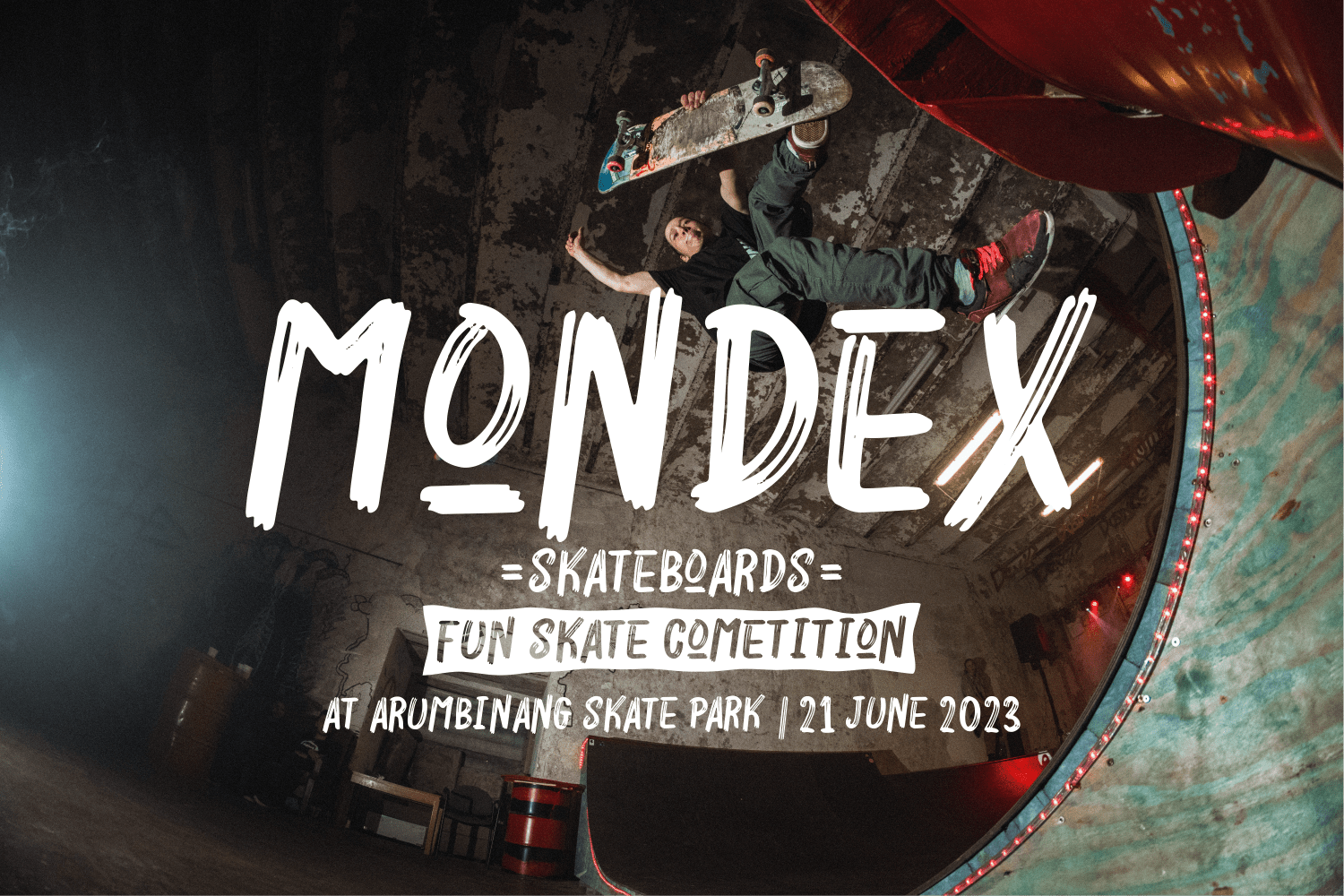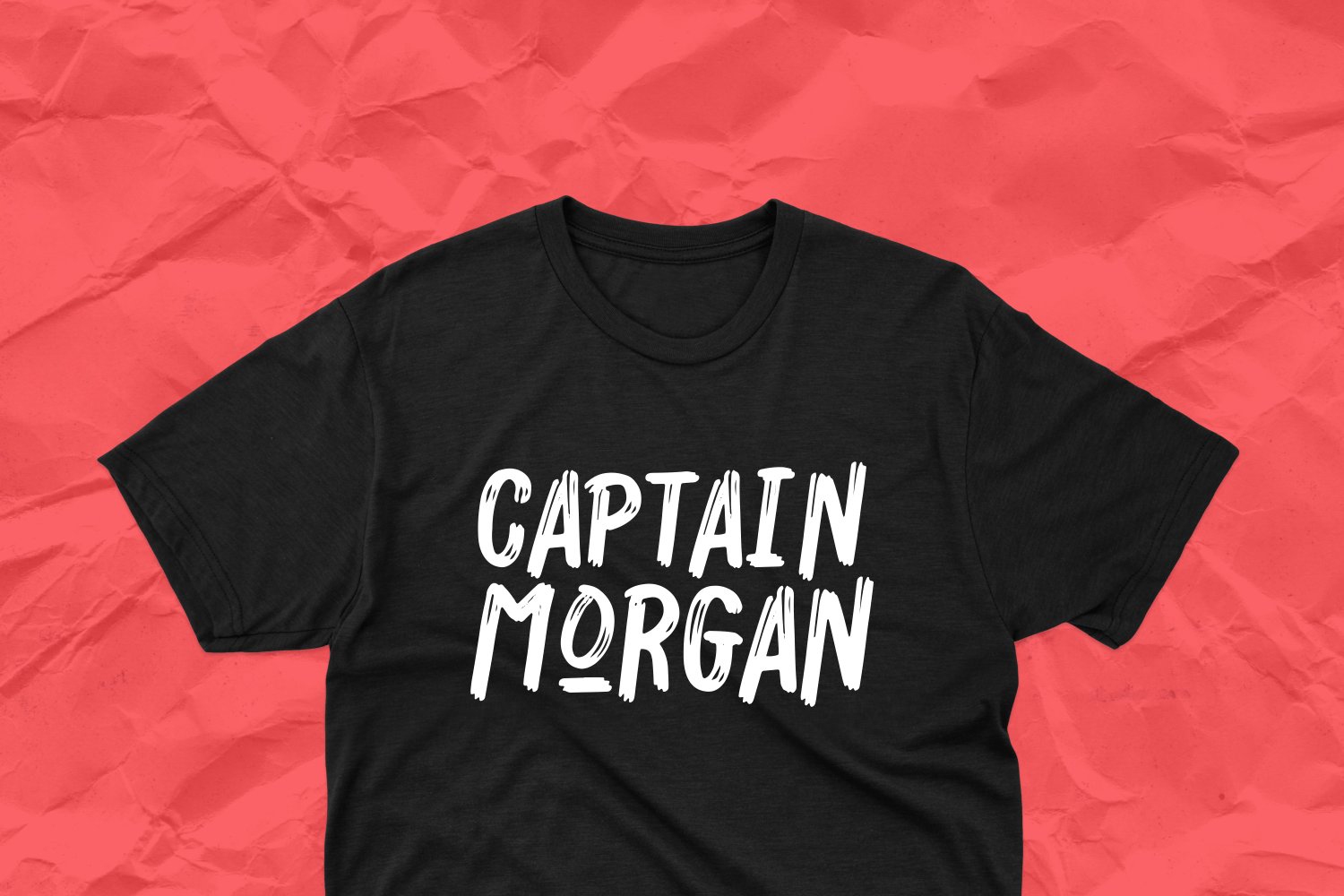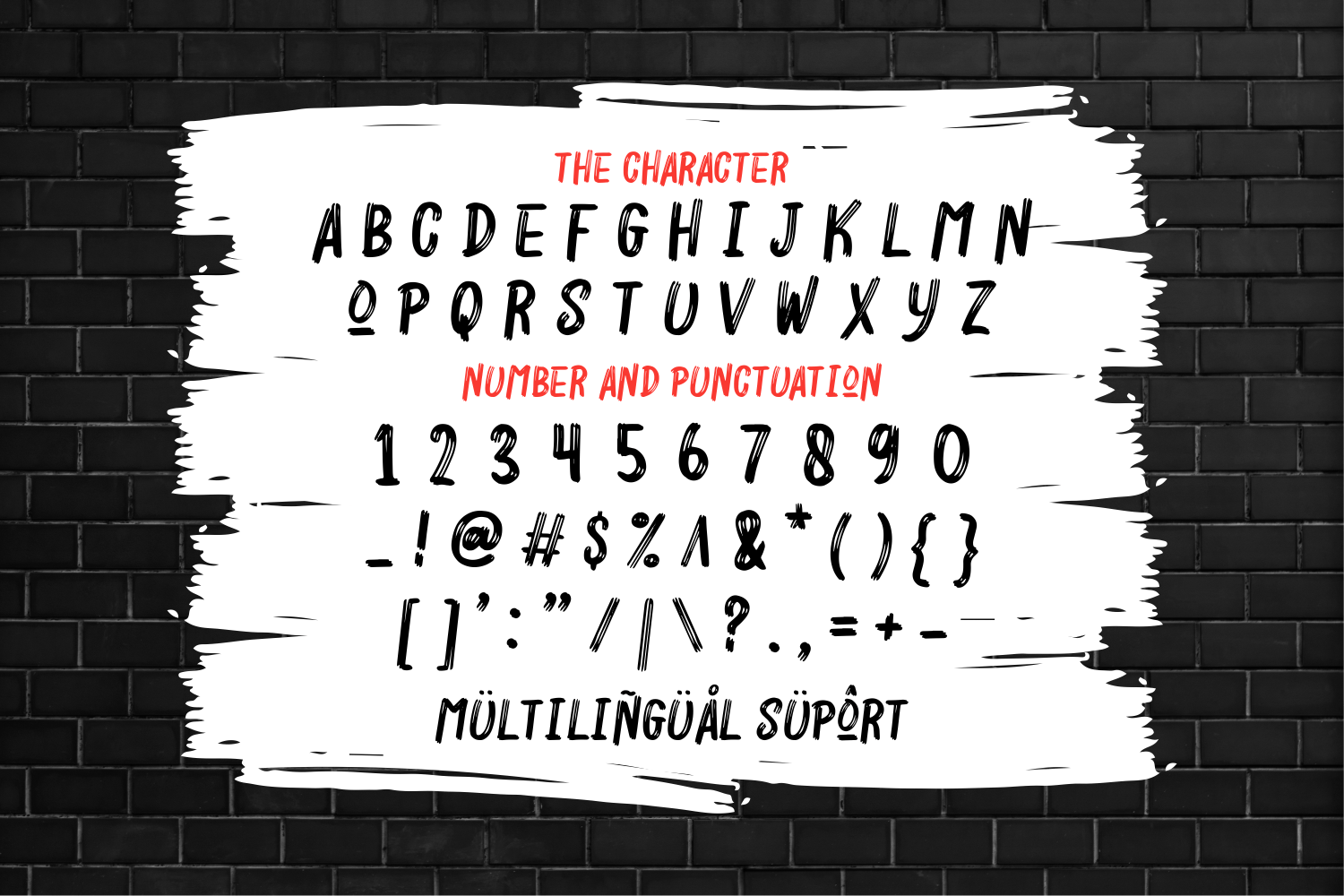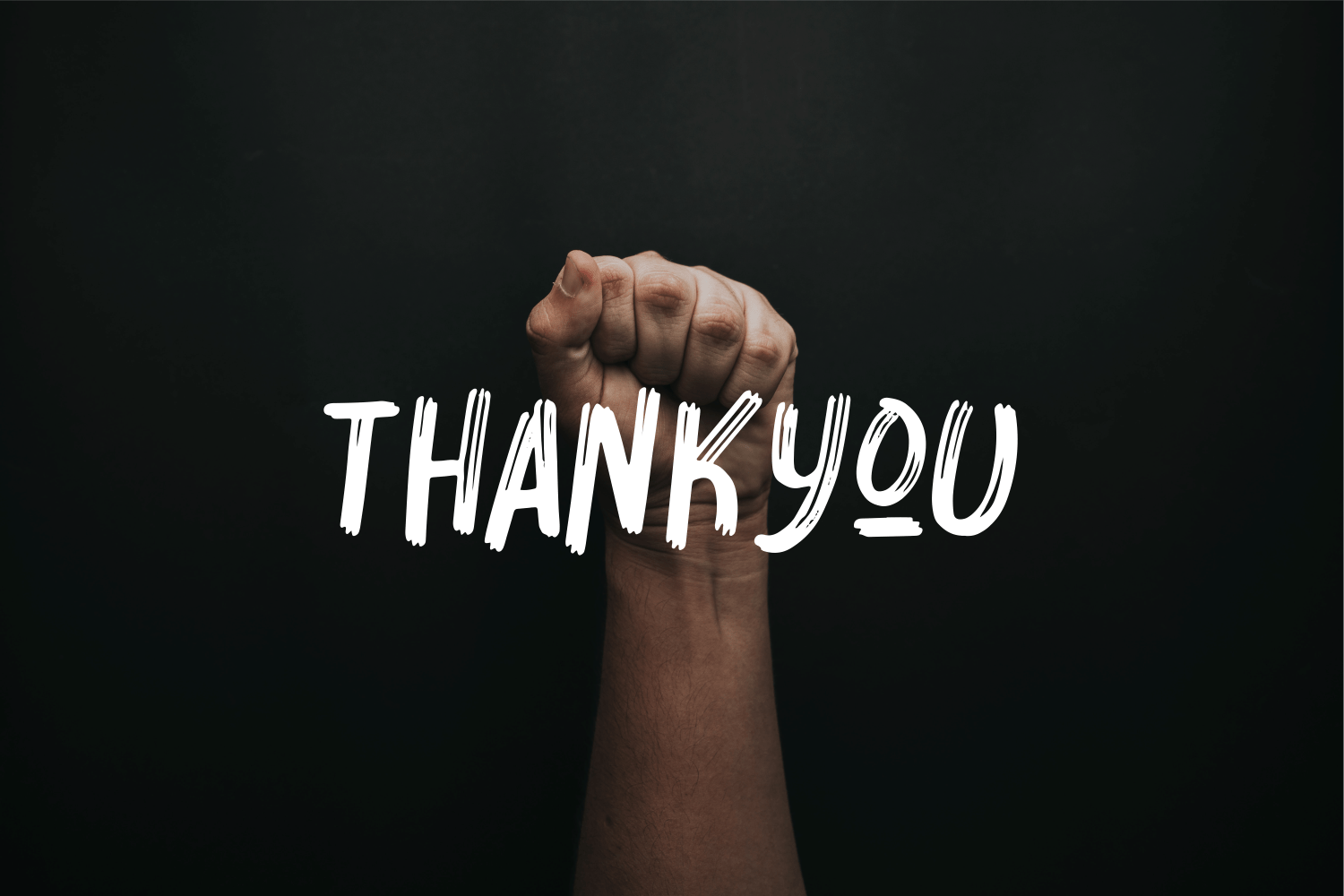
Roughler Font
Roughler Brush Font is a modern display font featuring modern and adaptable characters. It will create eye-catching results when used in projects that need an urban feel and an authentic vibe.